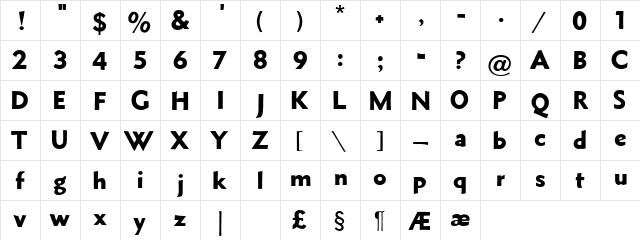
Metro Black Alt HPLHS
Design Context for Metro Black Alt Typeface
Metro Black Alt takes a measured approach to typography — its balanced proportions and neutral character make it a reliable workhorse for both digital and print work.